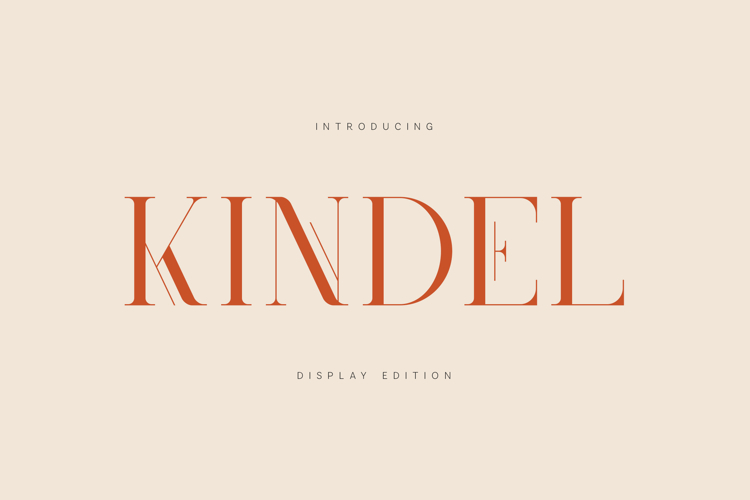
Kindel Elegant Display Serif
Introducing Kindel, a sophisticated display serif typeface where timeless elegance meets contemporary refinement. Designed with graceful contrasts, delicate details, and distinctive letterforms, Kindel transforms words into visual statements that feel luxurious, artistic, and unforgettable.
Inspired by high-fashion editorials, luxury branding, architectural minimalism, and modern cultural aesthetics, Kindel balances classic serif beauty with a fresh contemporary personality. Every character has been carefully crafted to create a harmonious rhythm, making it ideal for projects that demand sophistication, confidence, and visual impact.
Its refined proportions, elegant curves, and distinctive decorative details allow Kindel to shine in large display settings while maintaining exceptional readability. Whether used for luxury branding, magazine headlines, premium packaging, beauty products, boutique hotels, fashion campaigns, or modern editorial layouts, Kindel delivers a premium aesthetic that feels both timeless and forward-thinking.
Supporting an extensive range of international languages, Kindel is designed for creators who value beauty, versatility, and precision. From minimalist logos to bold headlines, this typeface elevates every composition with effortless sophistication.
Features- Elegant display serif typeface
- Luxury-inspired letterforms
- High contrast strokes
- Distinctive decorative details
- Clean and refined spacing
- Perfect for large headlines
- Luxury Branding
- Fashion Brands
- Editorial Design
- Magazine Covers
- Beauty Packaging
- Perfume Labels
- Boutique Hotels
- Wedding Stationery
- Premium Logos
- Restaurant Branding
- Product Packaging
- Interior Design Studios
- Social Media Campaigns
- Creative Agencies
- Book Covers
- Art Galleries
- Jewelry Brands
- Lifestyle Businesses
Kindel was created for designers who appreciate subtle luxury and refined typography. Its unique blend of classic elegance and modern sophistication makes it an exceptional choice for brands and creatives seeking a distinctive visual voice.
Whether you're building a luxury identity, designing an editorial masterpiece, or crafting memorable packaging, Kindel provides the elegance, clarity, and character needed to leave a lasting impression.
Elevate your typography with Kindel — where elegance becomes design.